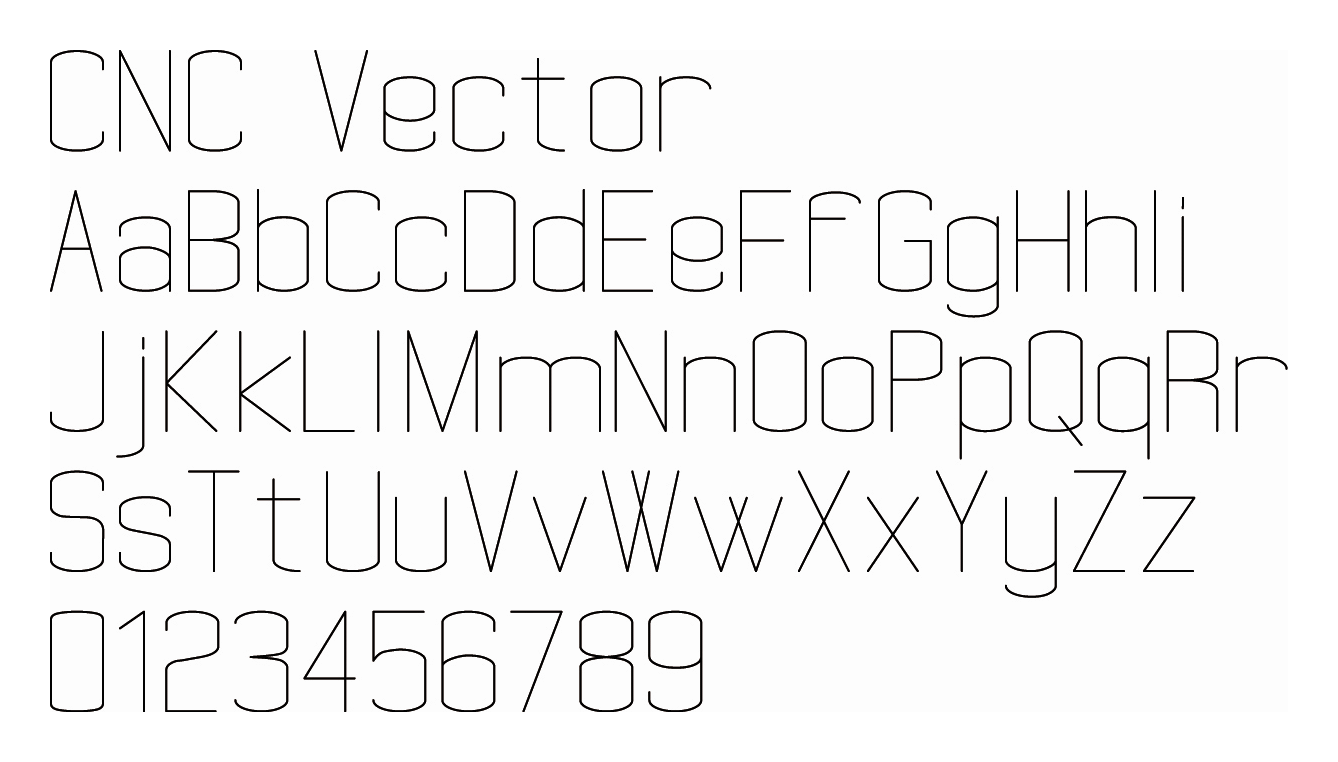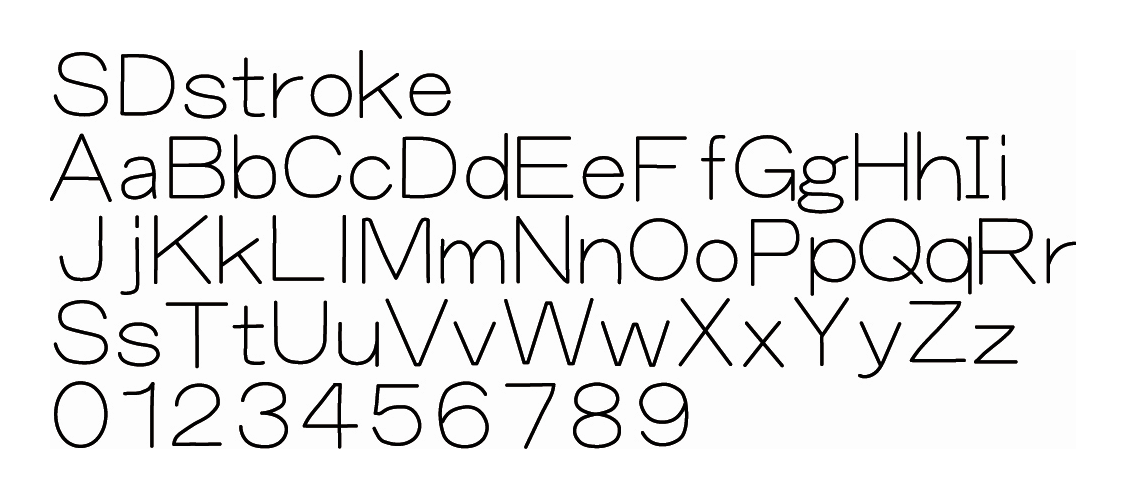
Single Line Fonts For Cnc Engraving Free Download. Is there a place to find free single line fonts for cnc use? Single line fonts are typically used to reduce engraving cycle times, and for small engraving applications.
Ten (10) additional single line fonts are available with the pro 1, pro 2 and pro 3 engraving software programs. Stickfont v1.1 is free, download it here. Single line fonts are also used when engraving very small lines and letters, and for engraving in small spaces.
This Set Of Single Line Fonts Offers A Wide Range Of Styled Fonts, Including Arial, Block, Cursive/Script, Italic, And The 2L Fixed Width Font, Which Is Ideal For Serialized Part Numbers.
See preview single line font, write comments, or download single line font for free. Single line available in windows and mac os x version. These single line fonts are hand crafted by us and will save you up to 95% of time on your next project.
These single line fonts will increase the. Search from a wide range of typography fonts Free single line fonts for cnc engraving and cutting.
For Professional Engravings On Cnc Machines.
These fonts are particularly great with the cricut foil transfer system and the foil quill.a lot of these fonts come with more than one version and specific instructions for how to use them. Is there a place to find free single line fonts for cnc use? This category is ideal for cricut pens and markers, infusible ink pens, foil quill or engraving tools, and more.